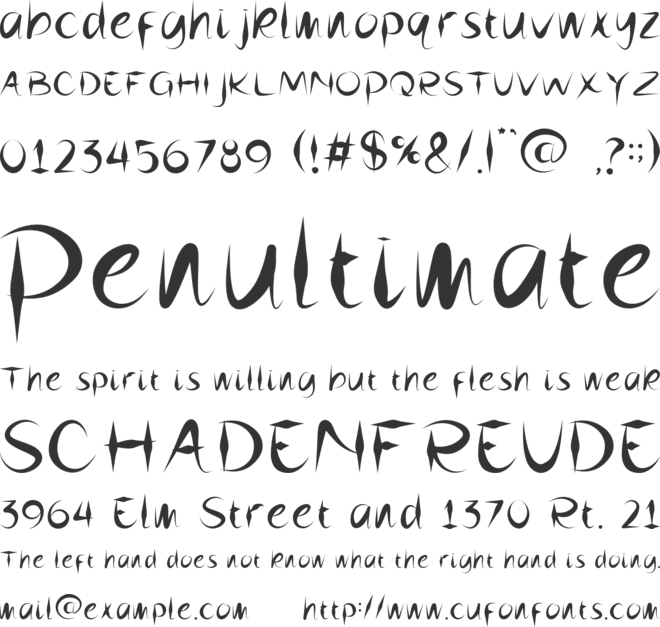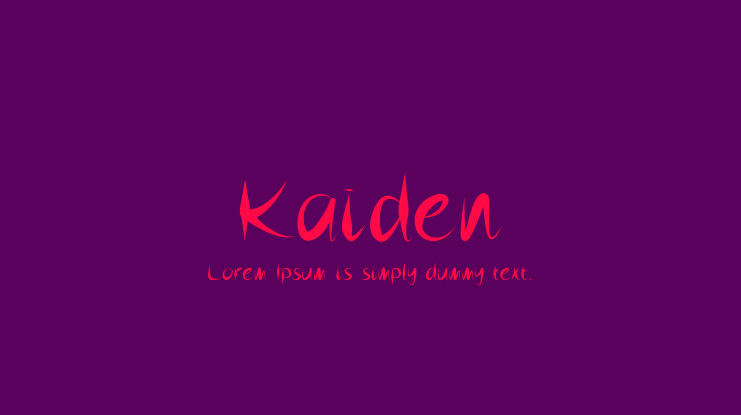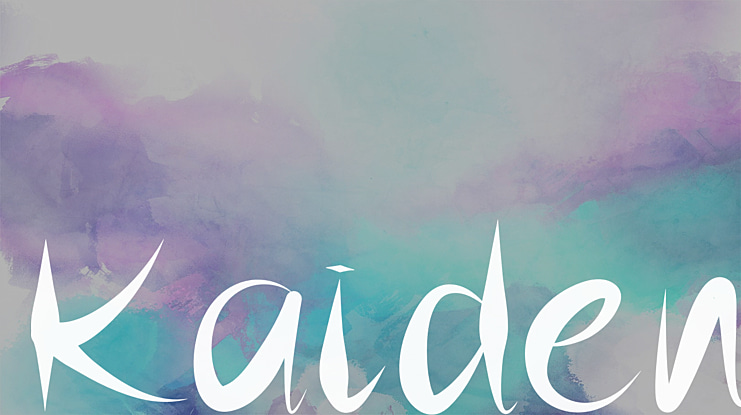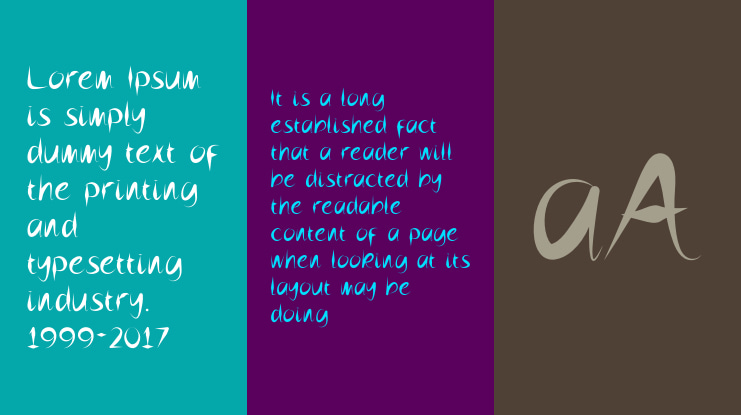
Kaiden Font
Kaiden is a cool, magical and whimsical script font. Whether you use it for cartoon related designs, children games or just any creation that requires a lovely touch, this font will be an amazing choice